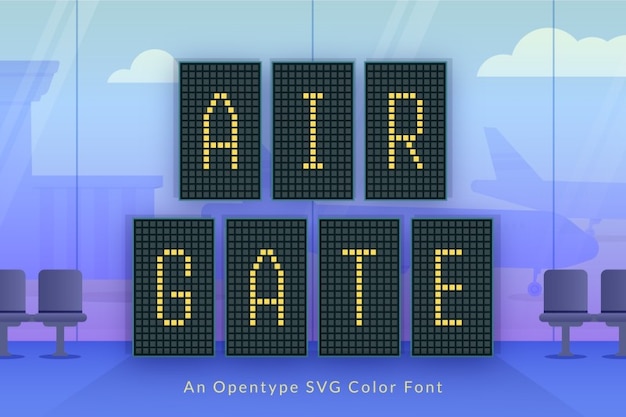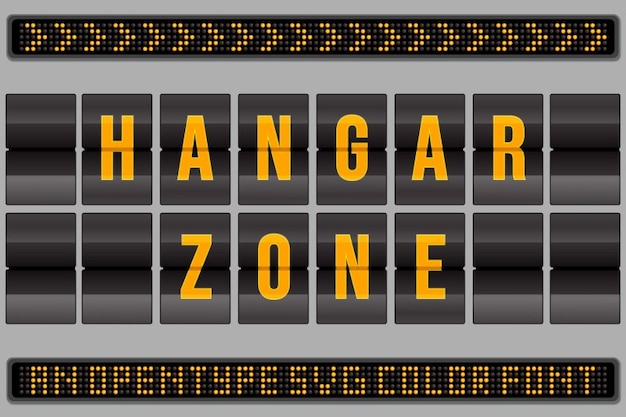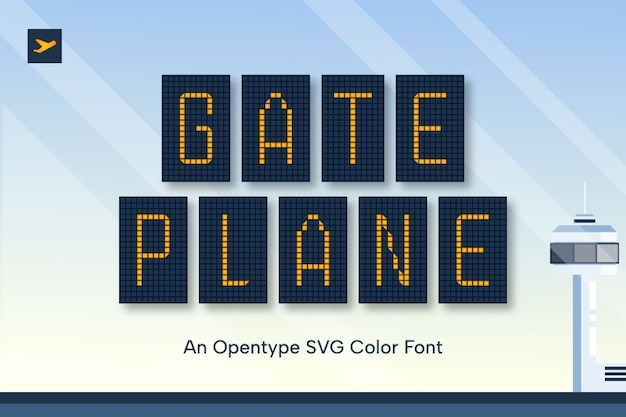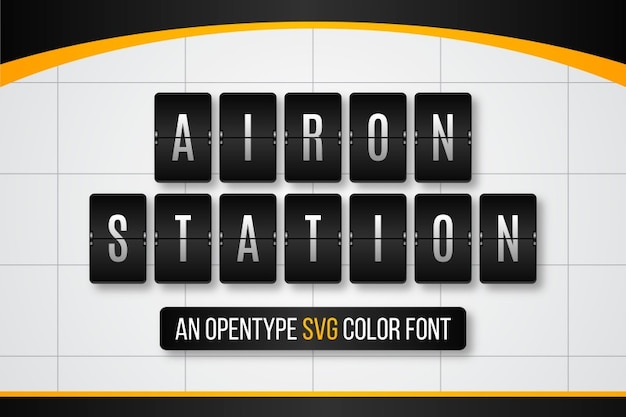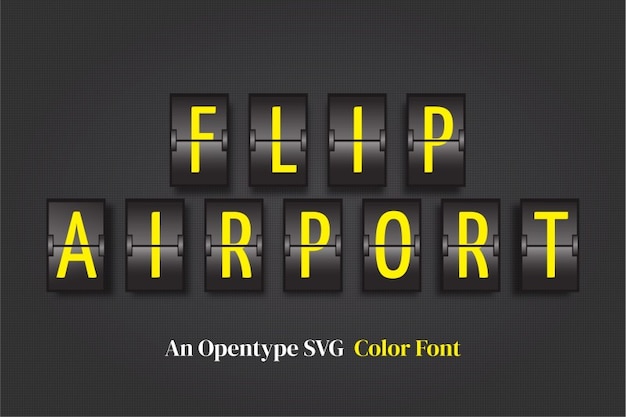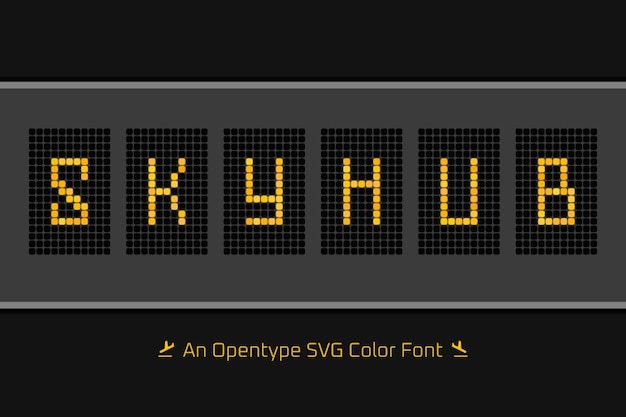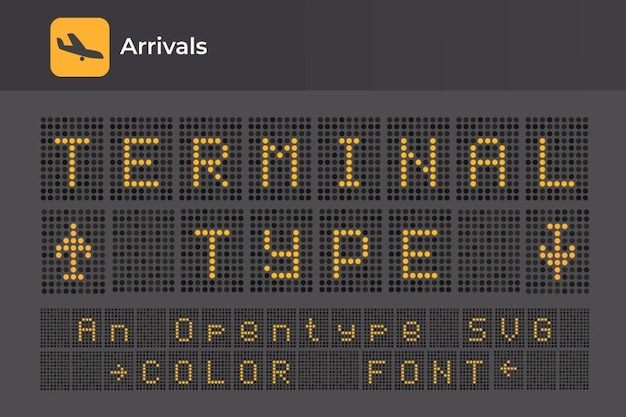
Airport fonts
It implies a sleek, modern design inspired by airport signage. It features clear, functional letterforms with a clean and professional look